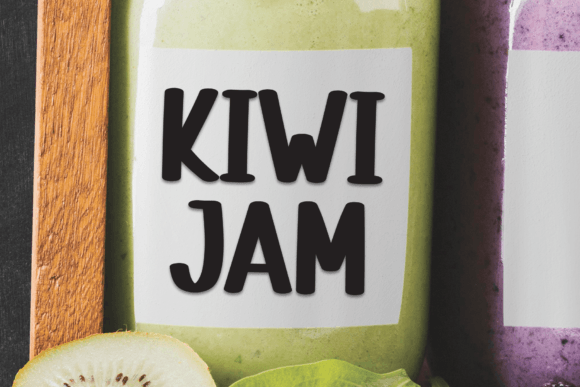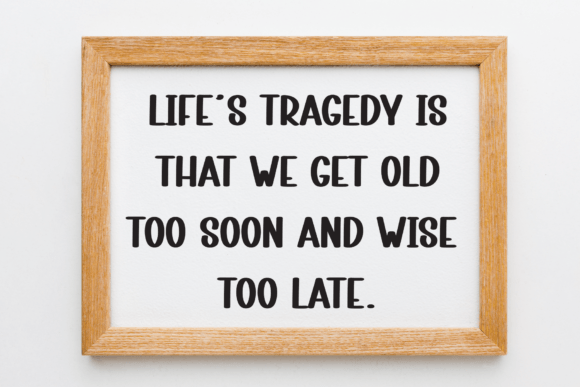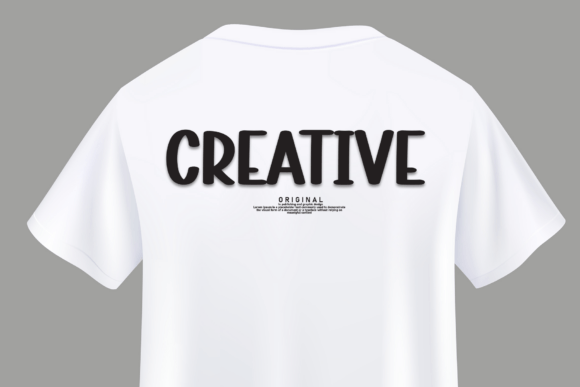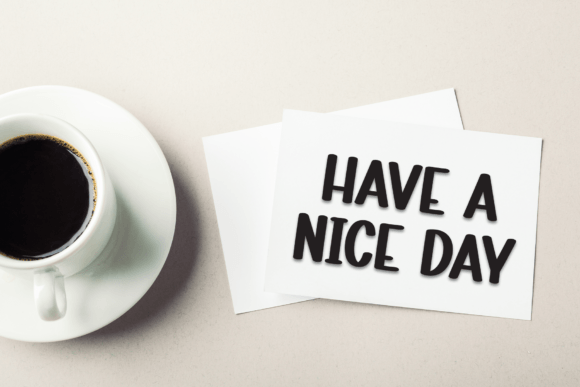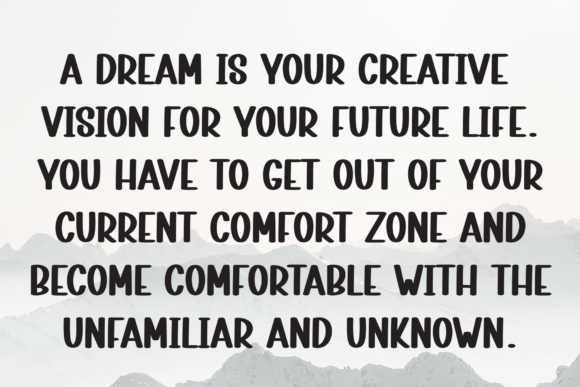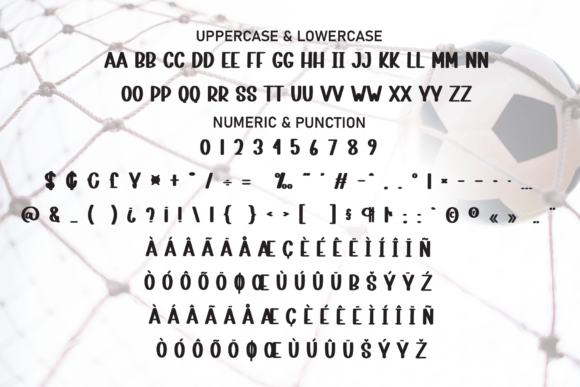
Introducing Football Font: The Ultimate Choice for Sports-Themed Designs
Are you a designer or crafter looking for a font that embodies the spirit of sports and athleticism? Look no further than Football Font, a simple yet bold display font that’s perfect for creating eye-catching headlines and team names. With its strong and sporty look, Football Font is sure to make your text stand out from the crowd.
What is Football Font?
Football Font is a display font designed specifically for sports-themed designs. Its clear and confident style makes it ideal for use in headlines, team names, and other applications where a bold and sporty look is desired. The font features clean lines, sharp edges, and a robust build that gives it a dynamic and energetic feel.
Key Features of Football Font
- Simple yet Bold: Football Font has a straightforward design that’s easy to read, yet bold enough to grab attention.
- Sporty Look: The font’s sporty style makes it perfect for use in sports-themed designs, such as team logos, jerseys, and sports equipment.
- Clear and Confident: Football Font has a clear and confident style that makes it easy to read, even at large sizes.
- Versatile: The font is versatile enough to be used in a variety of applications, from digital designs to print materials.
Why Choose Football Font?
There are many fonts available that claim to be sports-themed, but Football Font stands out from the rest. Here are just a few reasons why:
- Unique Style: Football Font has a unique style that’s both modern and classic, making it perfect for designers and crafters who want to create something distinctive.
- Ease of Use: The font is easy to use and pairs well with a variety of other fonts, making it simple to incorporate into your designs.
- High-Quality: Football Font is a high-quality font that’s designed to produce crisp, clear results, even at large sizes.
How to Use Football Font
Football Font is perfect for a variety of design applications, including:
- Team Logos: Use Football Font to create bold and eye-catching team logos that will stand out on jerseys, equipment, and more.
- Sports Jerseys: Add a sporty touch to your sports jersey designs with Football Font.
- Digital Designs: Use Football Font in digital designs, such as social media graphics, website headers, and more.
- Print Materials: Football Font is perfect for use in print materials, such as flyers, posters, and brochures.
Tips for Designing with Football Font
Here are a few tips for designing with Football Font:
- Pair with Other Fonts: Experiment with pairing Football Font with other fonts to create a unique and eye-catching design.
- Use Bold Colors: Football Font looks great in bold colors, so don’t be afraid to experiment with bright and vibrant hues.
- Keep it Simple: Football Font is a bold font, so keep your design simple and uncluttered to let the font shine.
Football Font is a simple yet bold display font that’s perfect for designers and crafters who want to create sports-themed designs that stand out. With its strong and sporty look, Football Font is sure to make your text stand out from the crowd. Whether you’re designing team logos, sports jerseys, or digital graphics, Football Font is the perfect choice.